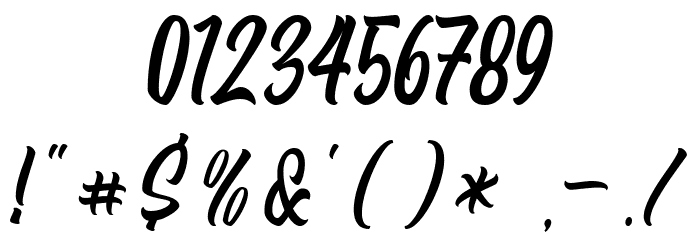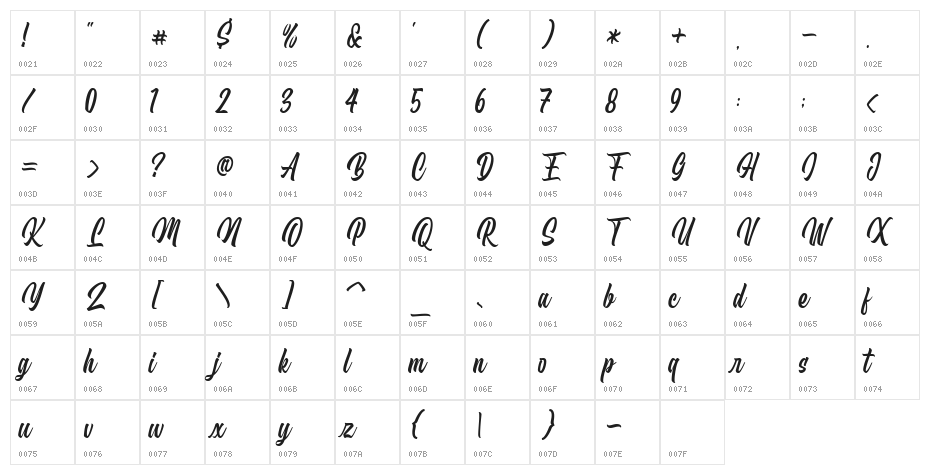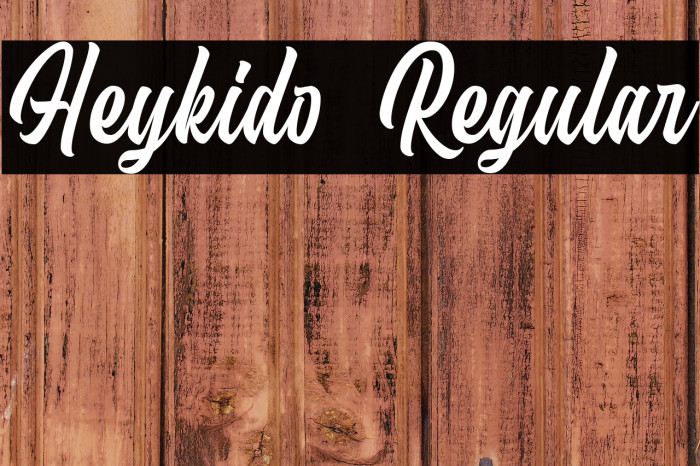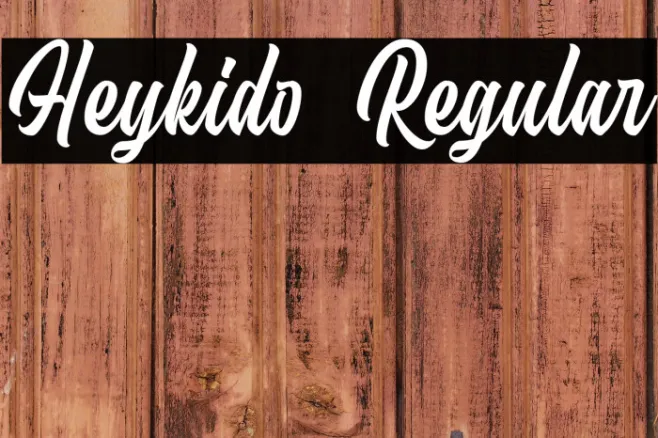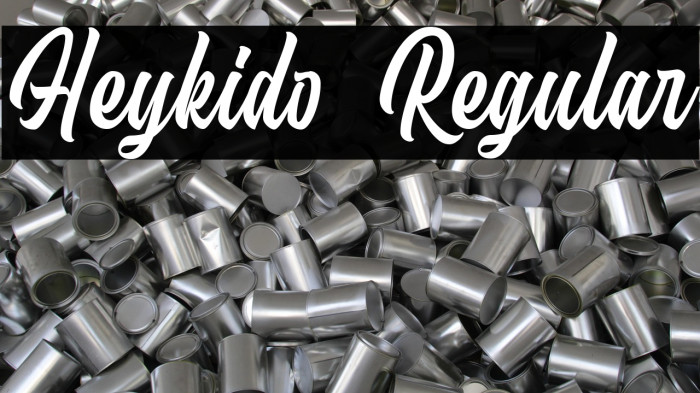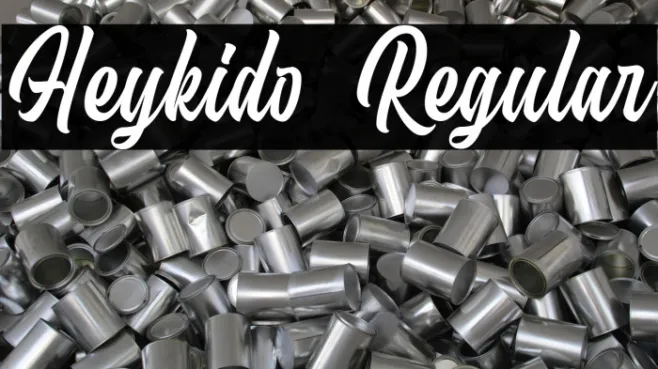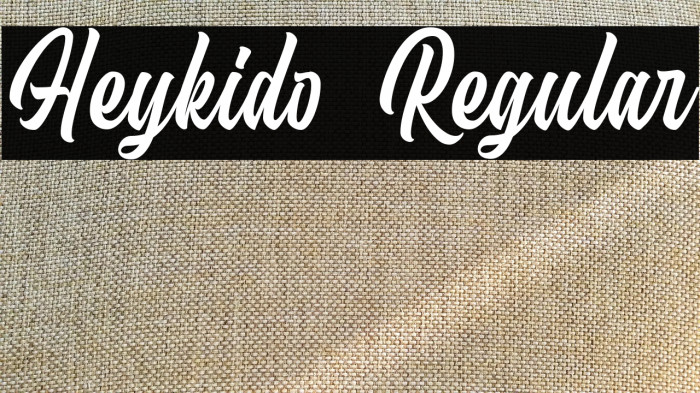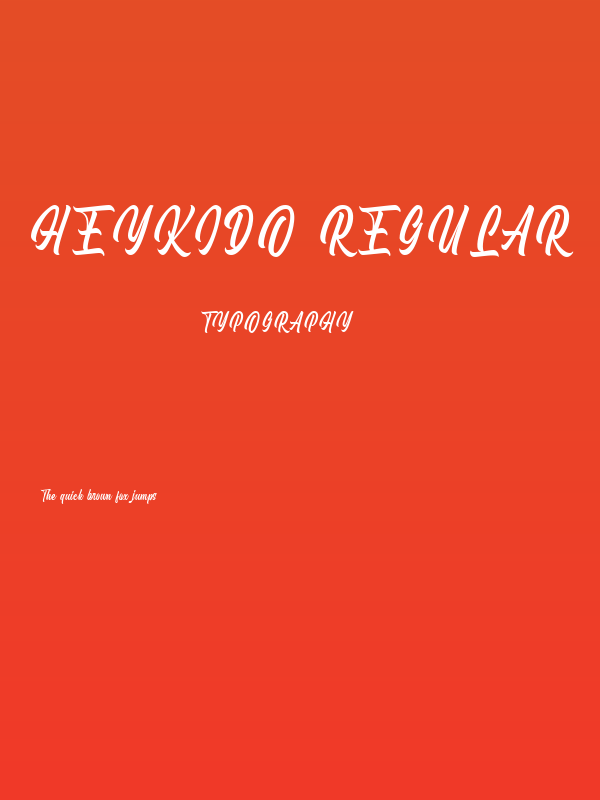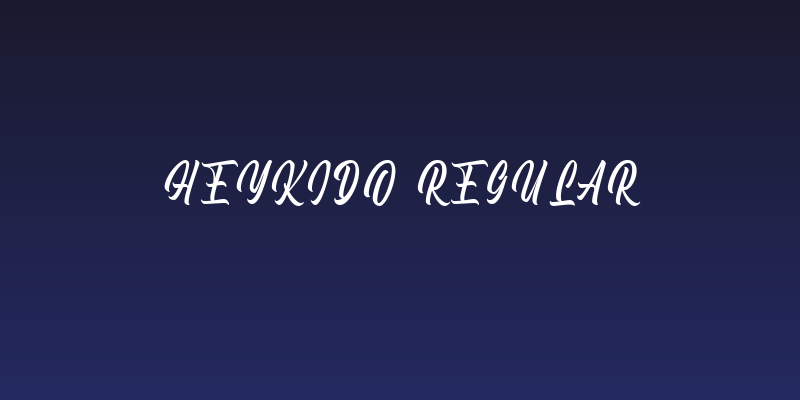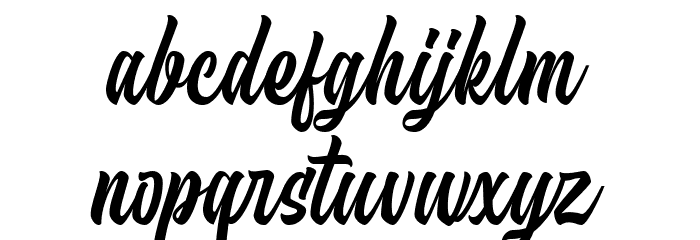
Heykido Regular Font
Heykido Regular Description
This font features a dynamic and flowing script style, characterized by its elegant and cursive letterforms. The uppercase letters exhibit a graceful and slightly slanted appearance, while the lowercase letters maintain a consistent and smooth flow. The numerals are designed with a similar cursive flair, ensuring uniformity across the character set. Special characters are integrated seamlessly, enhancing the font's versatility. The overall design exudes a sense of sophistication and fluidity, making it suitable for projects that require a touch of elegance and personal expression.
| Proposed Projects | Ideal for wedding invitations, greeting cards, branding, and elegant signage. |